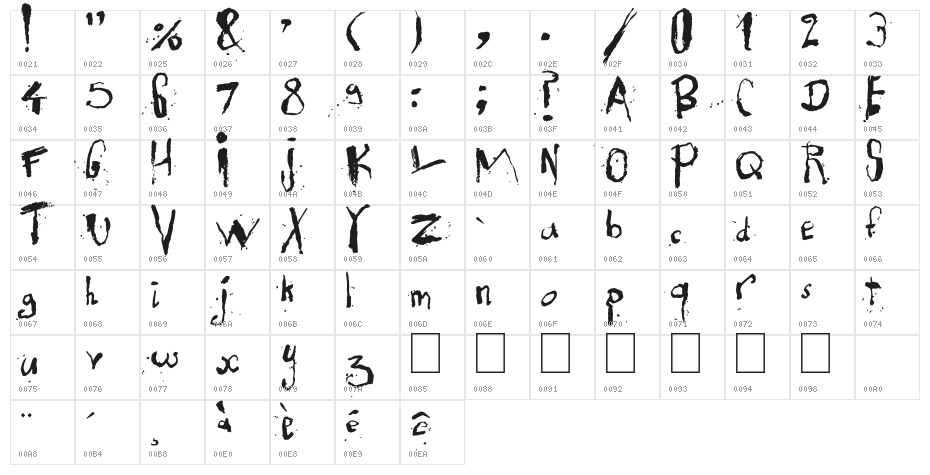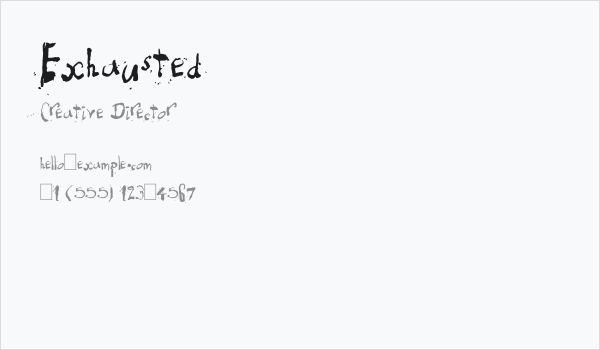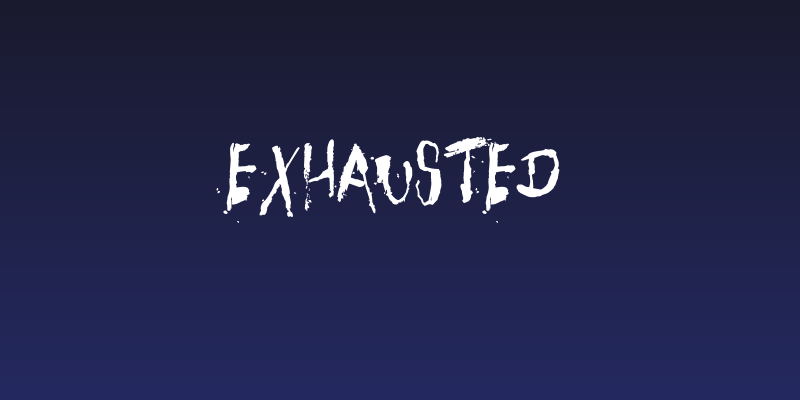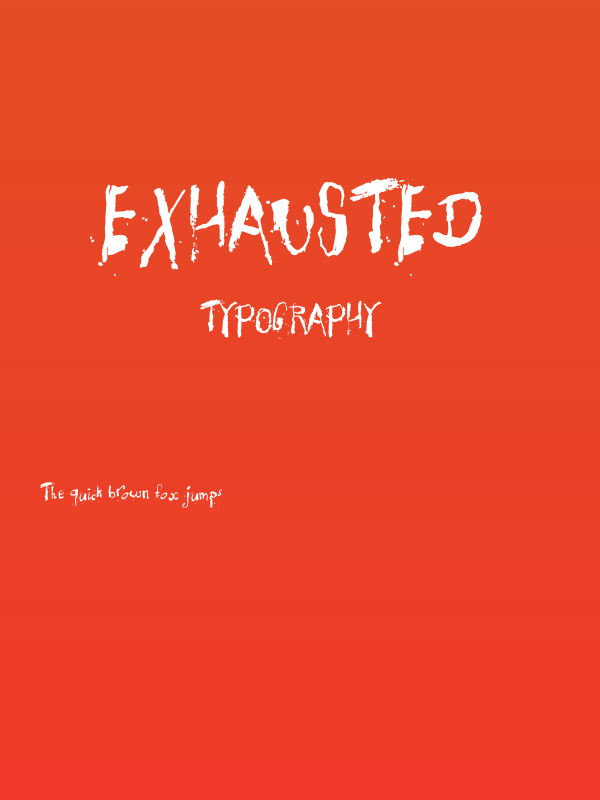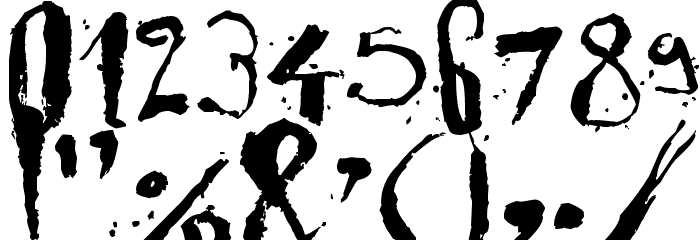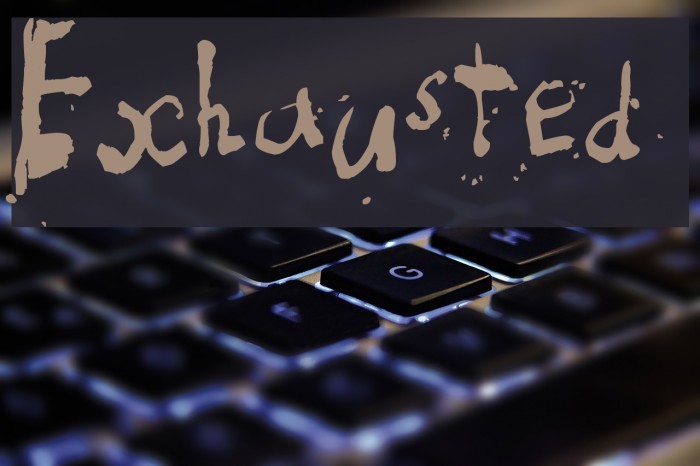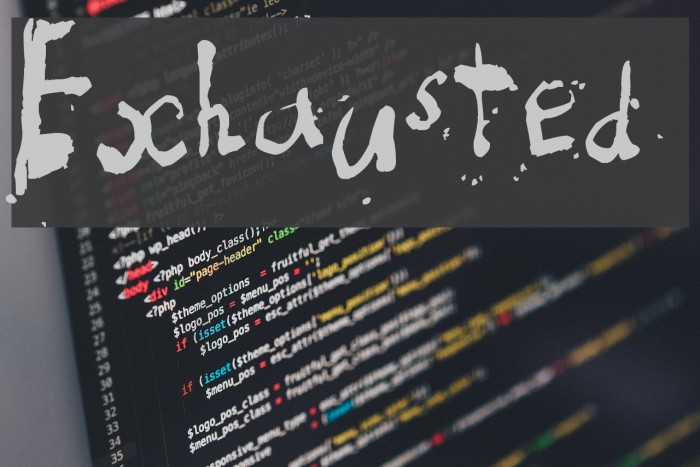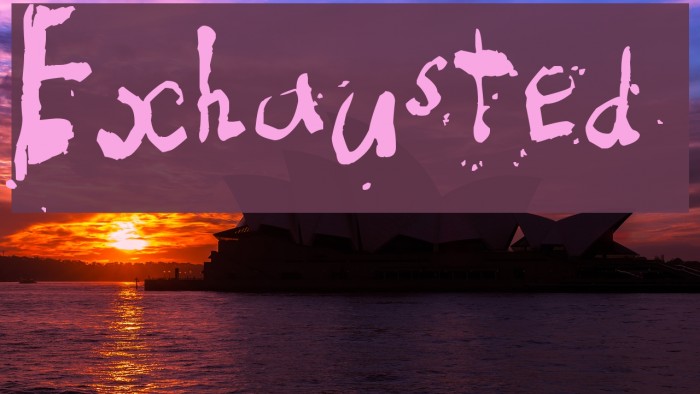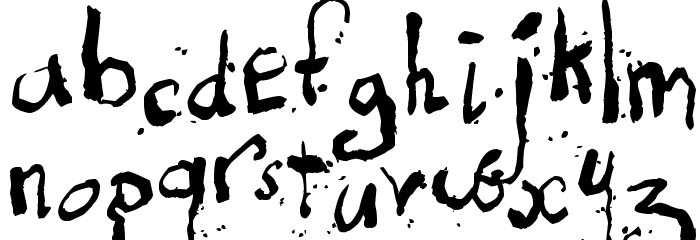
Exhausted Font
Exhausted Description
This font exudes a raw, expressive energy with its hand-drawn, brush-like strokes. Each character appears as if it has been painted with a brush, featuring irregular edges and varying thicknesses that give it a dynamic and artistic feel. The uppercase and lowercase letters maintain a consistent style, with a slightly chaotic yet intentional design. Numbers and special characters follow the same aesthetic, adding to the overall cohesive look. The font's unique appearance makes it stand out, perfect for projects that require a bold, artistic touch.
EXHAUSTED UPPERCASE
EXHAUSTED LOWERCASE
EXHAUSTED OTHER CHARS
| Overall Style | Artistic, Expressive |
| Use Case | Headlines, Posters, Artistic Designs |
| Proposed Projects | Ideal for artistic projects, album covers, posters, and any design needing a bold, expressive touch. |